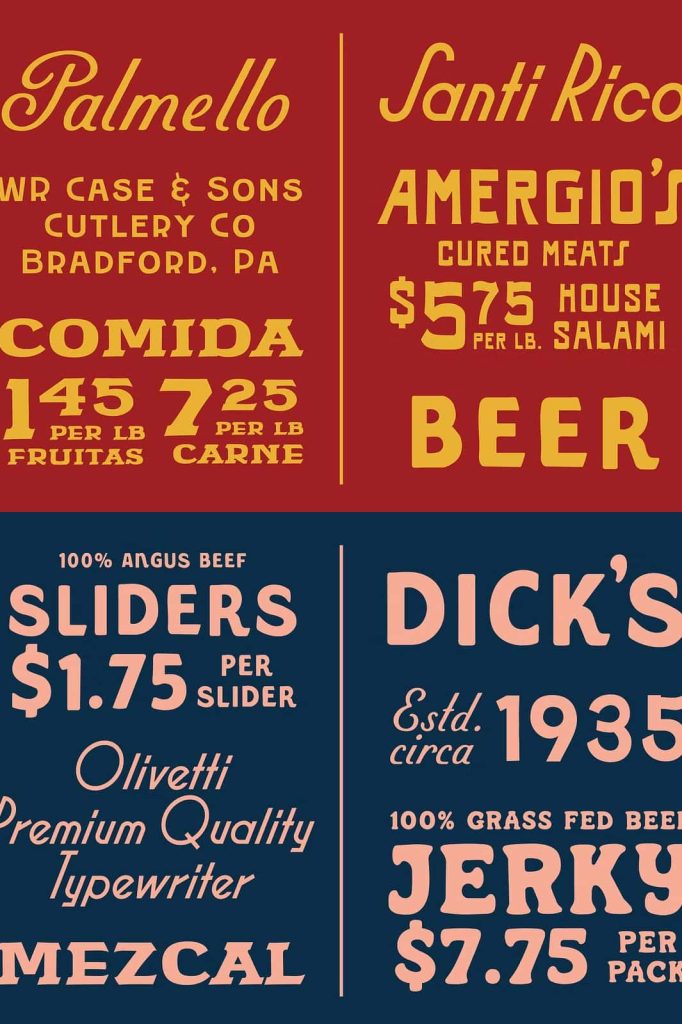
SAMPLE Hand-Drawn Font Collection: Authentic Craft Meets Timeless Design
The SAMPLE font collection delivers a rich set of hand-drawn typefaces that celebrate the beauty of craftsmanship and tradition. Inspired by hand-lettered artwork, vintage signage, and historic logos, this collection transforms classic influences into versatile modern tools. Each font carries a distinct personality, yet they work together seamlessly to create cohesive and visually compelling designs.
Designers who want to move beyond sterile, overly polished typography will find this collection especially valuable. SAMPLE introduces warmth, texture, and human touch into every project, making it ideal for creative work that demands authenticity and character.
The Inspiration Behind the SAMPLE Collection
The foundation of the SAMPLE font collection lies in the rich history of hand-crafted lettering. Before digital typography dominated design, artists and sign painters shaped letters by hand, giving each piece a unique identity. This collection captures that spirit by translating traditional techniques into digital typefaces that retain their organic charm.
Vintage signage plays a major role in shaping the collection’s visual direction. Old storefronts, painted signs, and retro advertisements influence the letterforms, creating a nostalgic yet timeless appeal. At the same time, historic logos contribute structure and balance, ensuring that the fonts remain functional and readable while still expressive.
By combining these influences, the SAMPLE collection creates a bridge between past and present. It allows designers to access the emotional depth of traditional lettering while maintaining the efficiency of modern typography tools.
Key Features of the Collection
Hand-Drawn Authenticity
Every typeface in the SAMPLE collection begins with hand-drawn sketches. This process preserves the natural imperfections and subtle variations that give lettering its human quality. Instead of uniform strokes, you see organic inconsistencies that add depth and visual interest.
Seamless Compatibility
The fonts are designed to work together effortlessly. Whether you combine them in branding, editorial layouts, or packaging, they maintain visual harmony. This flexibility allows designers to build layered compositions without worrying about mismatched styles.
Vintage and Retro Influence
The collection channels the charm of past eras through carefully crafted details. From bold signage-inspired lettering to refined logo-style forms, each font reflects a specific historical influence while remaining adaptable for contemporary use.
Versatile Design Applications
SAMPLE does not limit creativity. The collection adapts to a wide range of design contexts, offering both decorative and functional typefaces that suit different creative needs.
Best Use Cases for SAMPLE Fonts
The SAMPLE font collection excels in projects that require personality and storytelling. Its handcrafted aesthetic makes it particularly effective for:
- Branding projects that emphasize authenticity and heritage
- Packaging design for artisanal or handmade products
- Logotypes and badges inspired by vintage styles
- Posters and editorial layouts with a retro or nostalgic theme
Designers often use these fonts to create layered typographic systems. For example, one font can serve as a bold headline while another adds supporting detail, resulting in a dynamic and cohesive composition.
Why Choose the SAMPLE Font Collection?
The SAMPLE collection stands out because it combines artistic expression with practical usability. It allows designers to inject emotion and individuality into their work without sacrificing readability or consistency. Each typeface contributes a unique voice, yet together they form a unified system that enhances creative flexibility.
In a design landscape filled with generic fonts, SAMPLE offers a distinctive alternative. It helps brands and creatives establish a strong visual identity that feels genuine and memorable.
The SAMPLE hand-drawn font collection brings the timeless art of lettering into the modern design world. By drawing inspiration from vintage signage, historic logos, and traditional craftsmanship, it delivers typefaces that feel alive and expressive. For designers seeking to create work with warmth, depth, and authenticity, SAMPLE provides a powerful and versatile typographic solution.